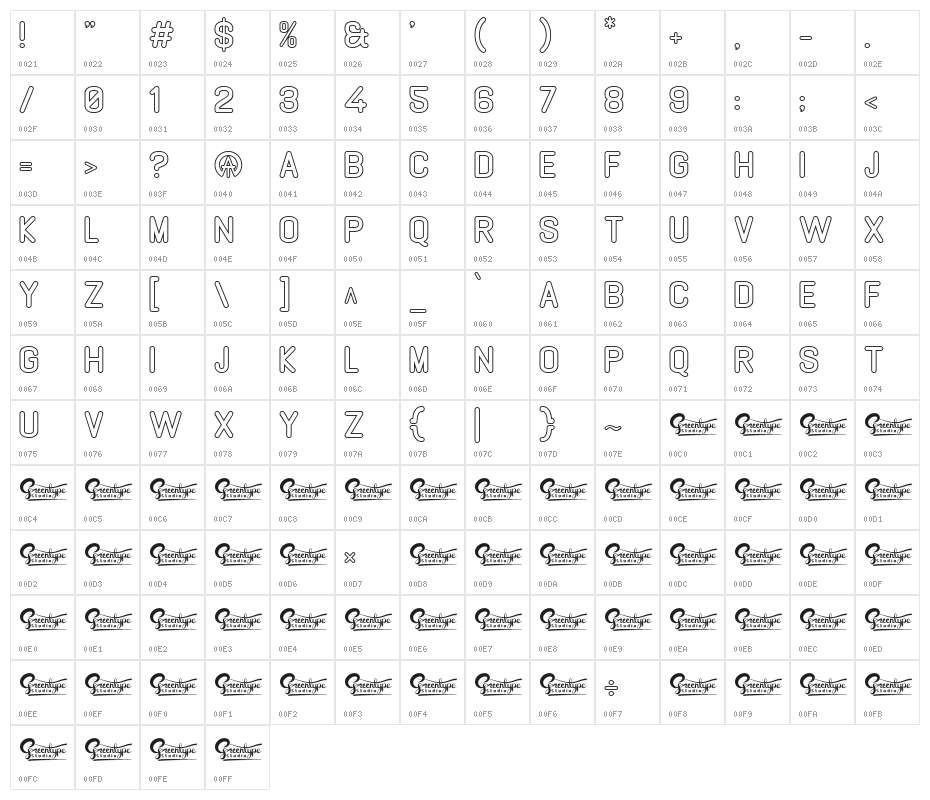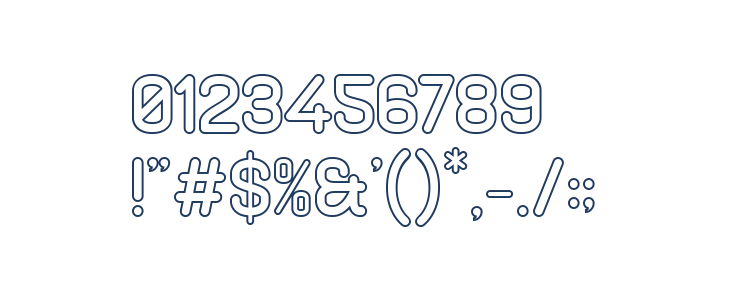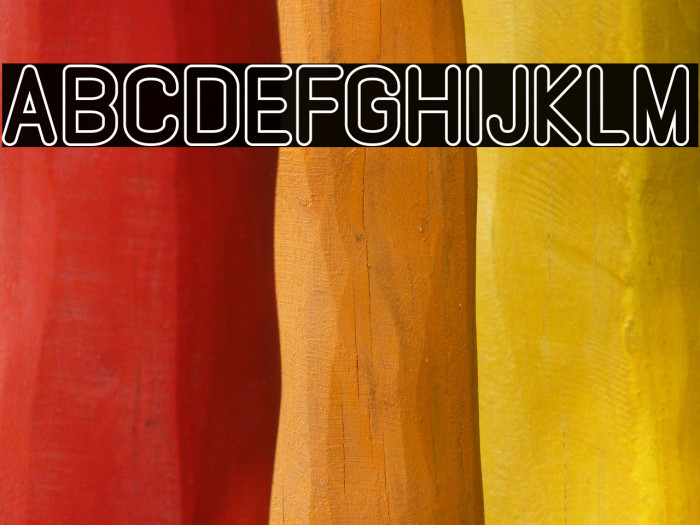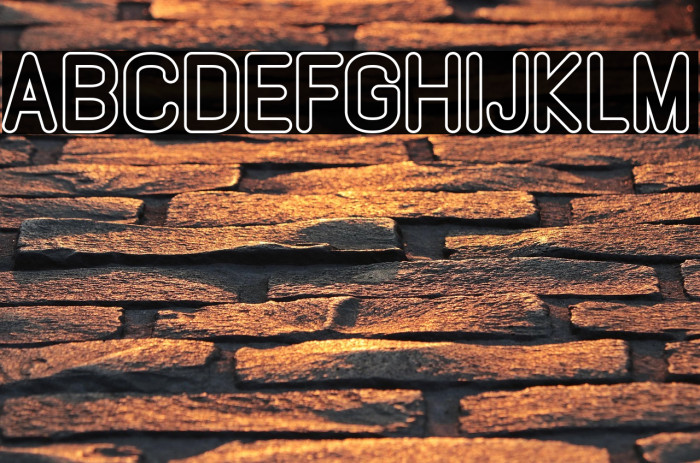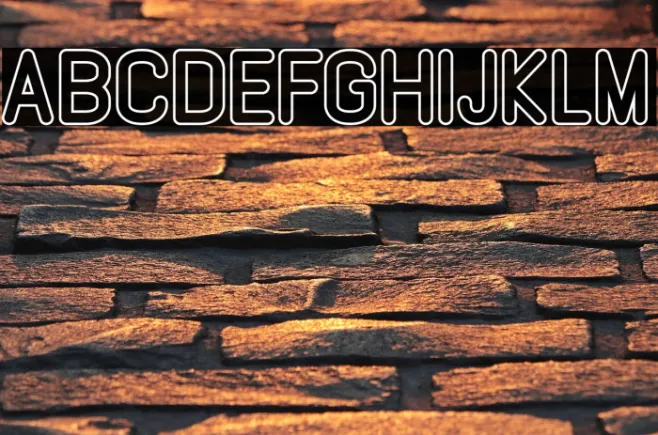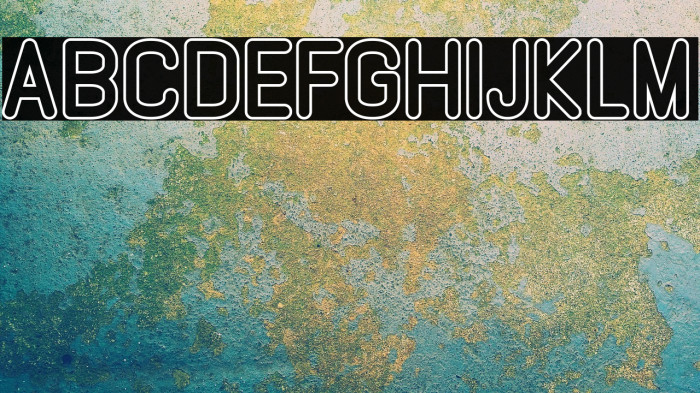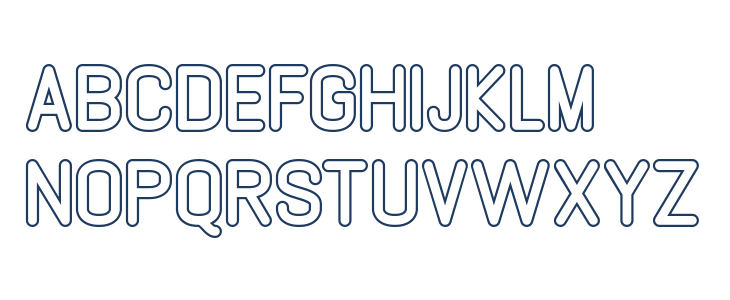
GABOED Outline Font
GABOED Outline Description
This font features a clean, modern outline style with uniform stroke thickness. The characters are uppercase and lowercase letters, numbers, and a variety of special symbols. The design is geometric and sans-serif, providing a contemporary and minimalist aesthetic. The outlines are consistent, creating a sense of balance and harmony across all characters. This style is particularly effective for creating a bold visual impact while maintaining readability. The font's simplicity and clarity make it versatile for various design applications.
| Proposed Projects | Ideal for branding, signage, posters, and digital media where a modern and clean look is desired. |